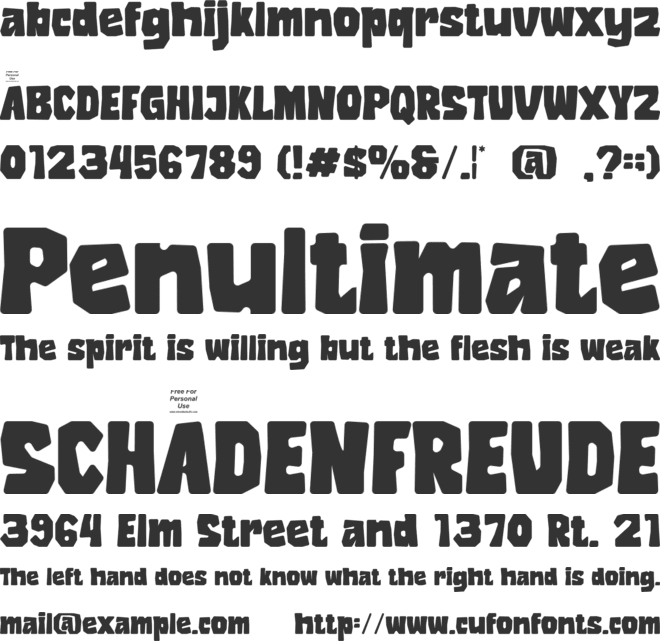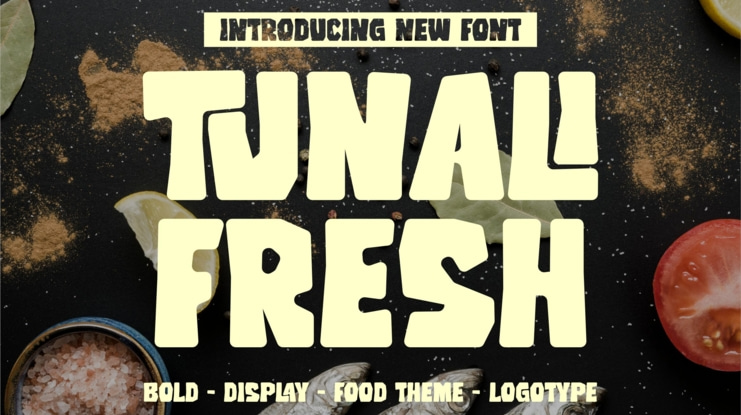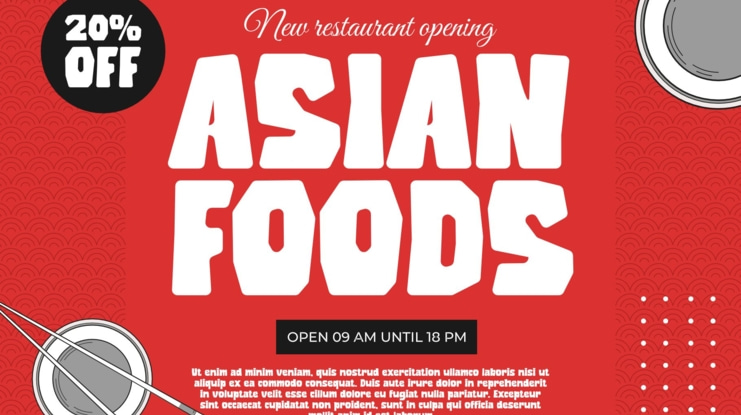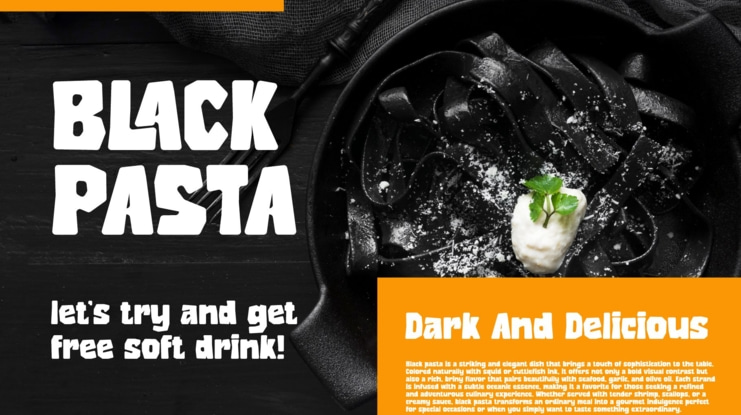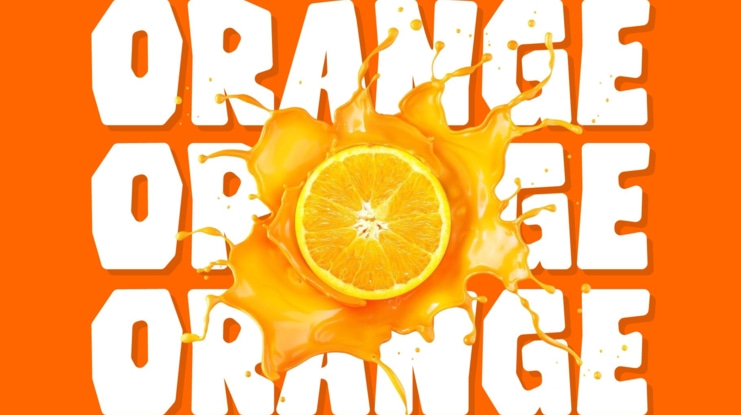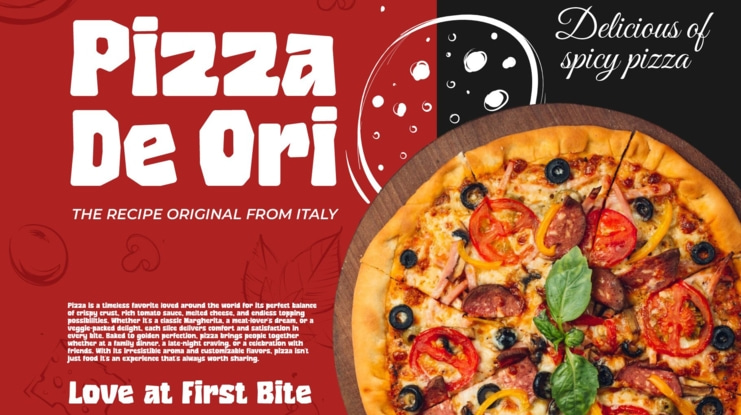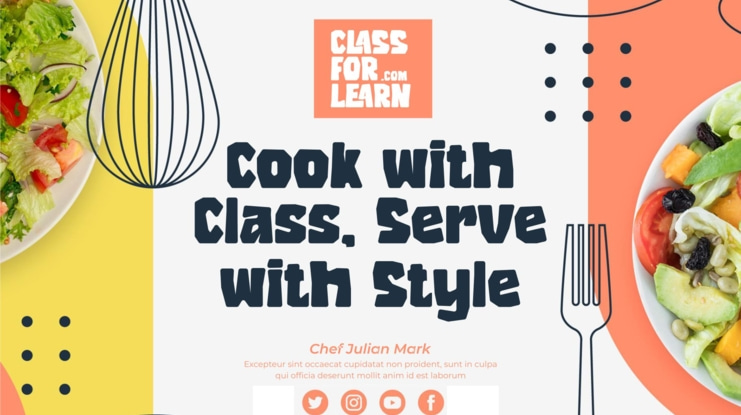
Tunali Fresh Font
Tunali Fresh is a deliciously bold food display font designed to bring flavor and fun to your creative projects. With chunky curves, playful energy, and a mouthwatering personality, this font is perfect for everything related to food—whether it’s restaurant branding, food packaging, café menus, or culinary social media content.
The letters of Tunali Fresh are crafted to feel inviting and flavorful, making any text pop like a tasty treat. Its cheerful style instantly adds warmth and approachability, helping you capture attention and communicate your message with charm. If you're working on a project that needs to feel tasty, vibrant, and irresistible—Rada Cenak is your secret ingredient.
- Uppercase and lowercase
- Numbering and Punctuation